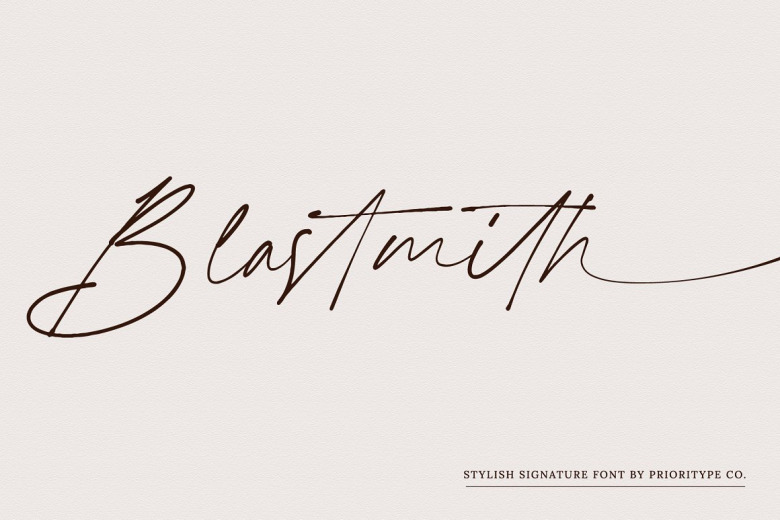
Blastmith Font
Blastmith is a cursive modern and stylish font with signature like. Few ligatures and swash character give a more naturaliii vibe to this font. Is a good typeface for your invitation base design, branding, quotes, and business cards or social media post.
Blastmith Handwritten Font